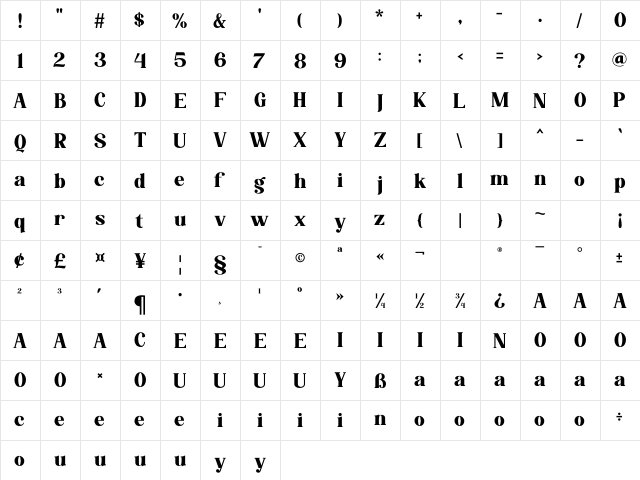
Fredella Regular
| Foundry | Nirmala Creative |
| Designer | Risma Ramawi |
Design Context for Fredella Typeface
Fredella takes a measured approach to typography — its balanced proportions and neutral character make it a reliable workhorse for both digital and print work.